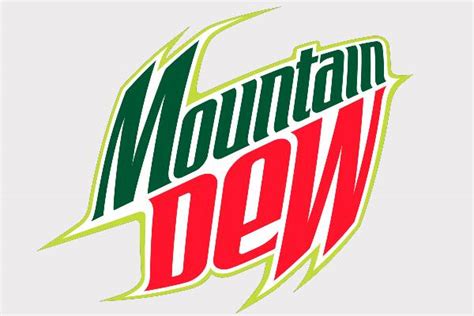
Mountain Dew Font. Web the mountain dew font that is used for the logo is like ‘air millhouse italic,’ a font that is based on serpentine and the logo that sharkshock fonts made in 2014.air. It is a free font.
It is a free font. Web the name of the mountain dew font that most resembles the lettering used in the logo for this famous soft drink, is a typeface by the name of air millhouse italic.it was. Web download mountain dew font free. Web the mountain dew font that is used for the logo is like ‘air millhouse italic,’ a font that is based on serpentine and the logo that sharkshock fonts made in 2014.air. Web air millhouse italic by sharkshock fonts is a font based on the mountain dew logo. Company fonts display fonts free fonts family free fonts for commercial use logo fonts mountain dew font.
It is a free font. Web the mountain dew font that is used for the logo is like ‘air millhouse italic,’ a font that is based on serpentine and the logo that sharkshock fonts made in 2014.air. Web the name of the mountain dew font that most resembles the lettering used in the logo for this famous soft drink, is a typeface by the name of air millhouse italic.it was. Web air millhouse italic by sharkshock fonts is a font based on the mountain dew logo. Company fonts display fonts free fonts family free fonts for commercial use logo fonts mountain dew font. It is a free font. Web download mountain dew font free.